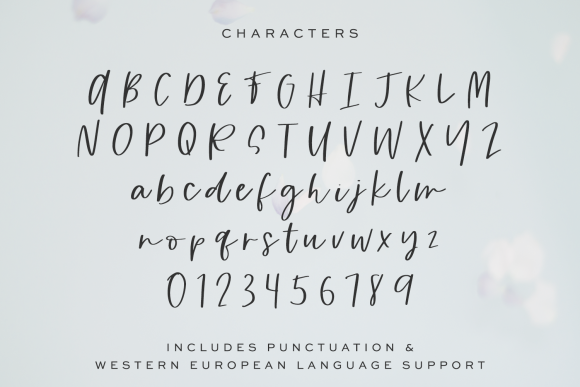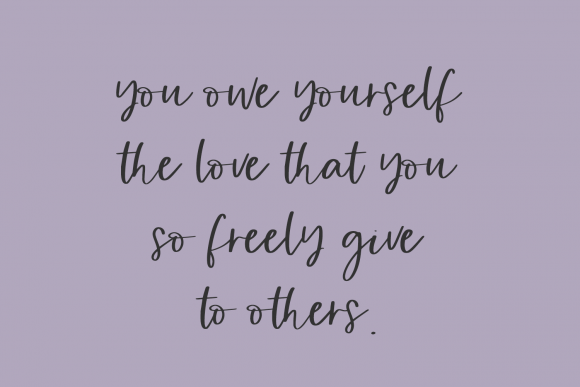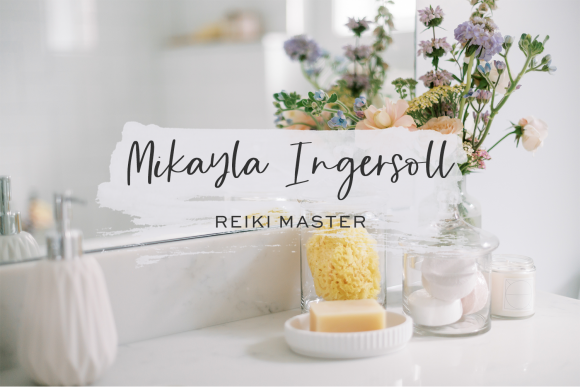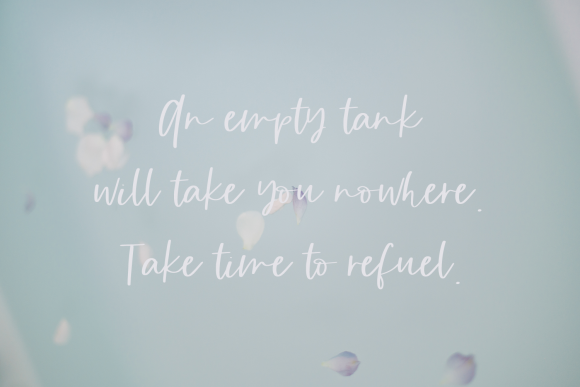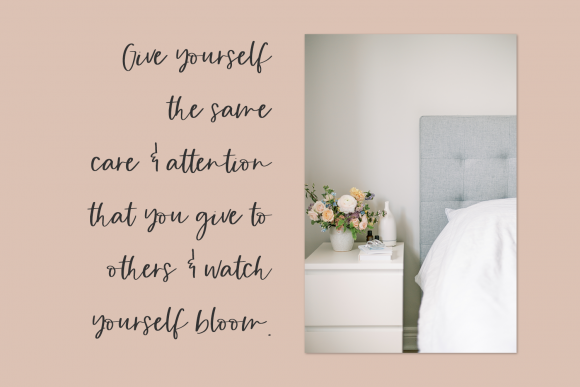
Small Things Font
About Small Things Font
Small Things is a sweet and delicate handwritten font. Dainty and joyful, this font will be ideal for writing wedding invitations, cards or any other design that may need a romantic, personalized touch!